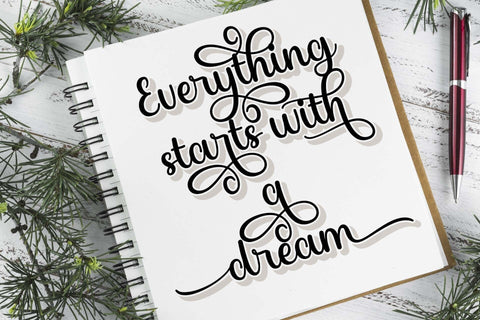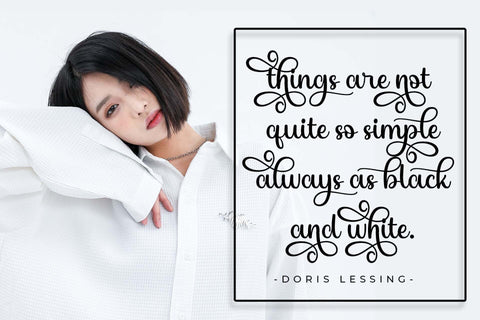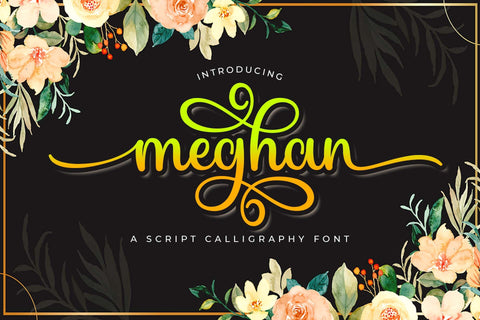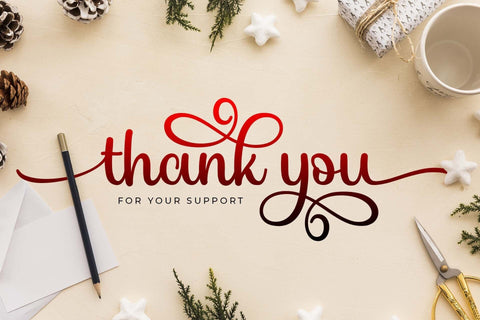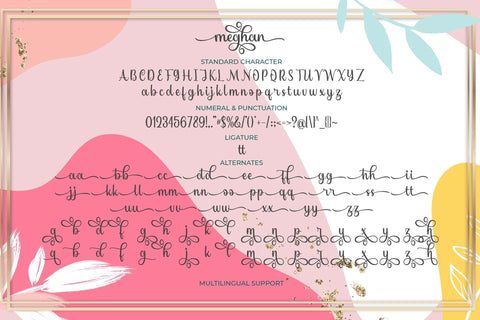
Meghan
Meghan is an elegant and flowing handwritten font. It is PUA encoded, which means you can access all of the glyphs and swashes with ease! It maintains its classy calligraphic influences while feeling contemporary and fresh.